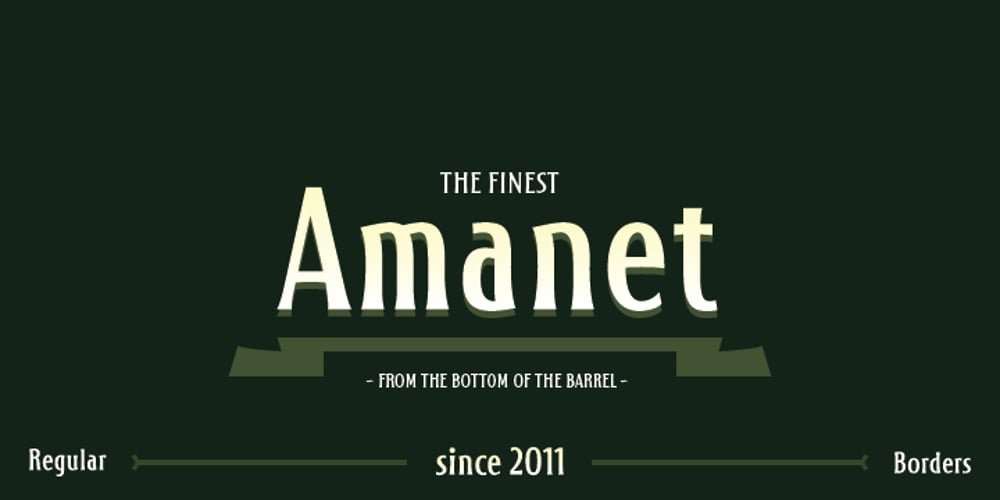
Amanet
Amanet font
Amanet Font Family was designed by Dusan Jelesijevic and published by Tour De Force. Amanet contains 2 styles and family package options. Amanet is original old fashion typeface that comes as Regular weight followed with stylistic compatibile Borders. It’s pretty readable in small sizes which recommends it for use on packages, labels or specific corporate identities. “Amanet” is an archaic Serbian word for English word “legacy”.